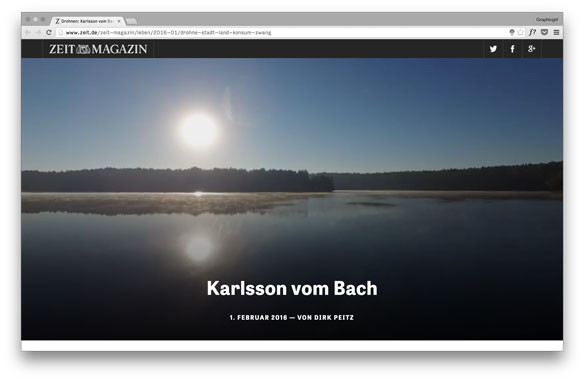
| TYPE IN USETablet Gothic in the online version of Die Zeit
Zeit Online, the online version of the German weekly Die Zeit, serves an audience of over 6 million users per month. As an in-house job which nonetheless involved the German design agency  Edenspiekermann, the website redesign provides readers with informational depth that they can explore at their own pace. While the website is now fully responsive to screen size and platform, it is held in place by the pleasing and trustworthy use of Tablet Gothic in headlines, subheads, menus, links, supporting texts, and captions — almost everything but long paragraph texts.